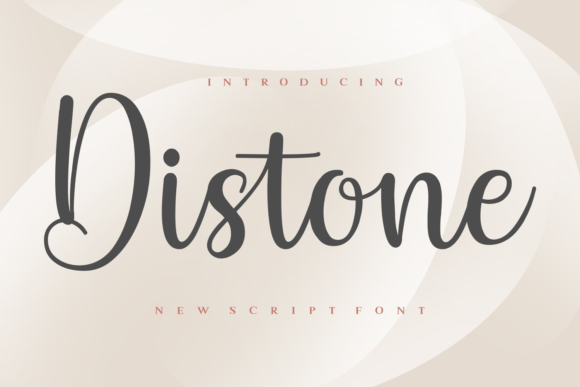
Introducing Distone Font, an Exquisite Journey Into the Realm of Elegance
Welcome to the realm of Distone Font, a breathtaking script font that will captivate your senses and unlock the door to limitless creativity. Crafted with meticulous attention to detail by the renowned Creative Fabrica Fonts, Distone is a testament to the beauty and power of typography.
With its graceful curves, delicate swashes, and impeccable charm, Distone Font is the perfect choice for those seeking to make a lasting impact. Whether you're a designer, an artist, or simply someone who appreciates the finer things in life, Distone Font is your gateway to creating visual masterpieces.
Imagine your designs adorned with the captivating allure of Distone Font. Your invitations will exude a touch of sophistication, your business cards will command attention, and your logos will leave an indelible mark on the minds of your clients. The possibilities are endless, and the only limit is your imagination.
With Distone Font, you'll discover a world of endless possibilities. Dive into the realm of wedding invitations, where Distone Font will weave a tale of love and romance, or venture into the world of branding, where it will lend a touch of elegance and professionalism to your creations. Unleash your creativity and let Distone Font guide you towards design excellence.
But Distone Font is more than just a font; it's an experience. It's a journey into the realm of beauty, where every letter dances across the page with grace and poise. It's a symphony of shapes and forms, harmoniously blending to create a visual masterpiece.
So, embark on this extraordinary journey with Distone Font. Let its elegance ignite your passion, its charm inspire your creativity, and its beauty leave you breathless. Discover the true power of typography with Distone Font, and unlock the gateway to a world of endless possibilities.